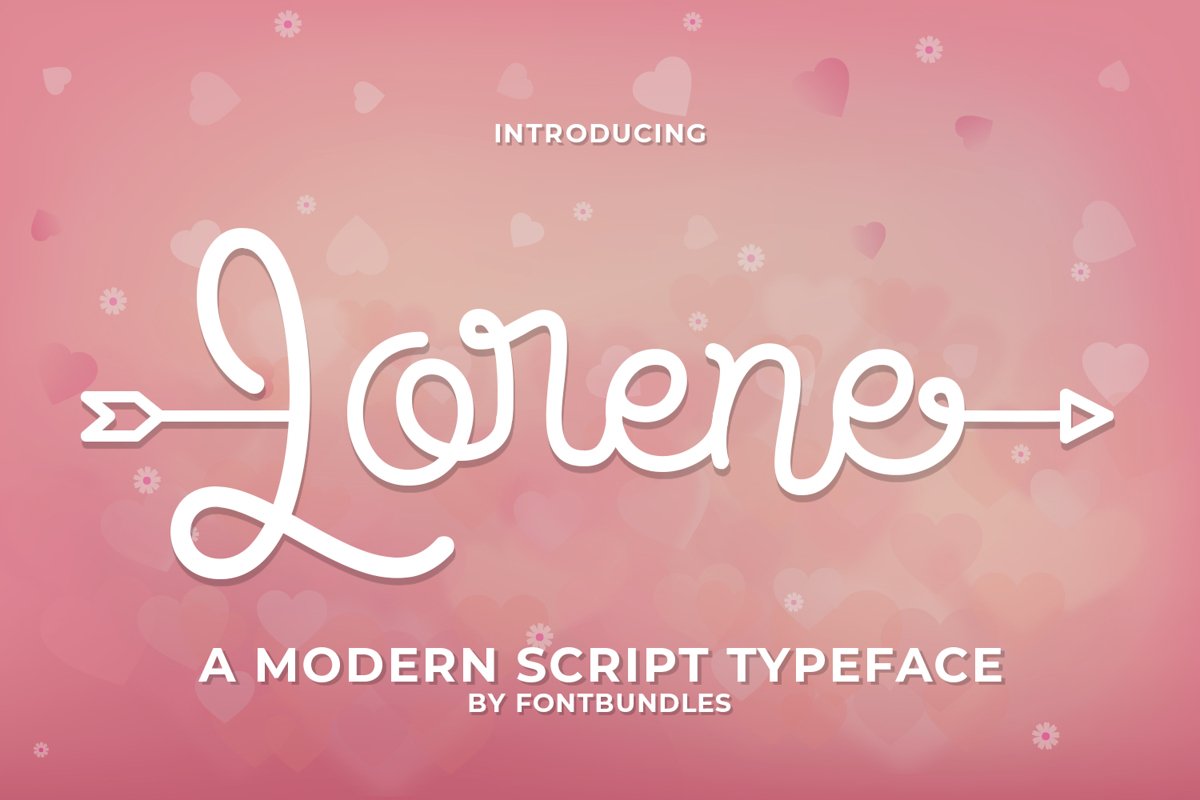
Lorene is a fancy modern script typeface. Perfect for quotes, logo, wedding needs, letters, invitation card, business card, name card, branding, merchandise, packaging and many more.